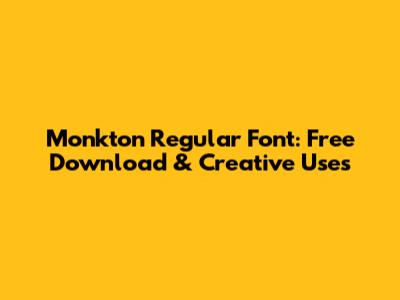
Monkton Regular Font: Free Download & Creative Uses
Hey there, design enthusiasts! đź‘‹ Ever stumbled upon a font and thought, "Wow, I need that!" Well, today's the day we dive into one such font: Monkton Regular. This isn't just any typeface; it's got that perfect blend of readability and personality that can elevate your projects from good to amazing. And the best part? We're talking about a free download, meaning you can get your hands on this gem without breaking the bank. Let's get started on everything about the Monkton Regular font free download and how you can creatively use it!
Why Choose Monkton Regular? Discovering Its Charm
So, why all the hype around Monkton Regular? What makes it stand out in a sea of fonts? For starters, it's incredibly versatile. Whether you're working on a sleek website design, crafting a captivating poster, or putting together a professional presentation, Monkton Regular fits the bill. The font's clean lines and balanced proportions make it easy on the eyes, ensuring your audience can effortlessly read and engage with your content. It's not just about aesthetics, though; it's about conveying a certain mood. Monkton Regular strikes a perfect balance between modern and classic, making it suitable for a wide range of projects. Think about it: you want a font that communicates trustworthiness and sophistication, but also keeps things fresh and appealing. That's precisely what Monkton Regular offers.
Imagine designing a logo for a tech startup. You need something that feels innovative but not overly futuristic. Monkton Regular could be the ideal choice, offering a sense of stability with a touch of contemporary flair. Or perhaps you're working on a blog post or an ebook. With its excellent readability, Monkton Regular ensures your readers stay engaged from start to finish. This font truly shines in various applications because it doesn't try too hard. It simply gets the job done with elegance and grace. Plus, the fact that you can get a Monkton Regular font free download means you can experiment with it without any financial commitment. That opens up a world of possibilities for designers of all levels, from seasoned professionals to enthusiastic beginners. The font's versatility extends to various languages as well, with support for a wide range of characters. This feature is particularly useful for international projects, ensuring your message is clear and accessible to a global audience. Whether you're working on a personal project or a commercial endeavor, Monkton Regular is a reliable and stylish choice. It's a testament to how the right typeface can significantly impact the overall look and feel of your designs. So, if you are looking for Monkton Regular font free download, keep reading!
Furthermore, consider the emotional impact of the font. A well-chosen typeface can evoke specific feelings and associations. Monkton Regular, with its balanced design, often conveys a sense of reliability, professionalism, and approachability. This makes it an excellent choice for businesses looking to build trust with their customers or organizations aiming to create a positive impression. The understated elegance of the font prevents it from overpowering the message. Instead, it serves as a subtle yet powerful tool to enhance your content. The beauty of Monkton Regular lies in its simplicity. It's a font that complements the message rather than competing with it. When you get a Monkton Regular font free download, you're not just adding a font to your collection; you're gaining access to a tool that can transform how your designs are perceived. It's the kind of font that works well across different media, from print materials to digital interfaces. It adapts seamlessly to various design requirements, giving you the flexibility to explore different styles and create compelling visual narratives. The ease of reading is another key factor. In a world saturated with information, making sure your content is easily digestible is crucial. Monkton Regular’s clarity ensures that your audience can focus on the message without distractions, making it a valuable asset for any designer or content creator. Therefore, with a Monkton Regular font free download, it is an excellent font to choose.
Creative Uses of Monkton Regular: Unleashing Your Imagination
• Website Design: Use Monkton Regular for headings, body text, or even navigation menus. Its clean, modern look gives your website a polished feel. The font's excellent readability makes it ideal for long-form content, keeping visitors engaged and making your site user-friendly.
• Poster Design: Create eye-catching posters for events, promotions, or announcements. The font's bold yet refined style makes it perfect for grabbing attention. You can pair it with vibrant colors and striking images to create a memorable design. Monkton Regular is particularly effective for posters that need to convey a sense of professionalism or trustworthiness.
Conclusion: Embrace the Monkton Regular Font